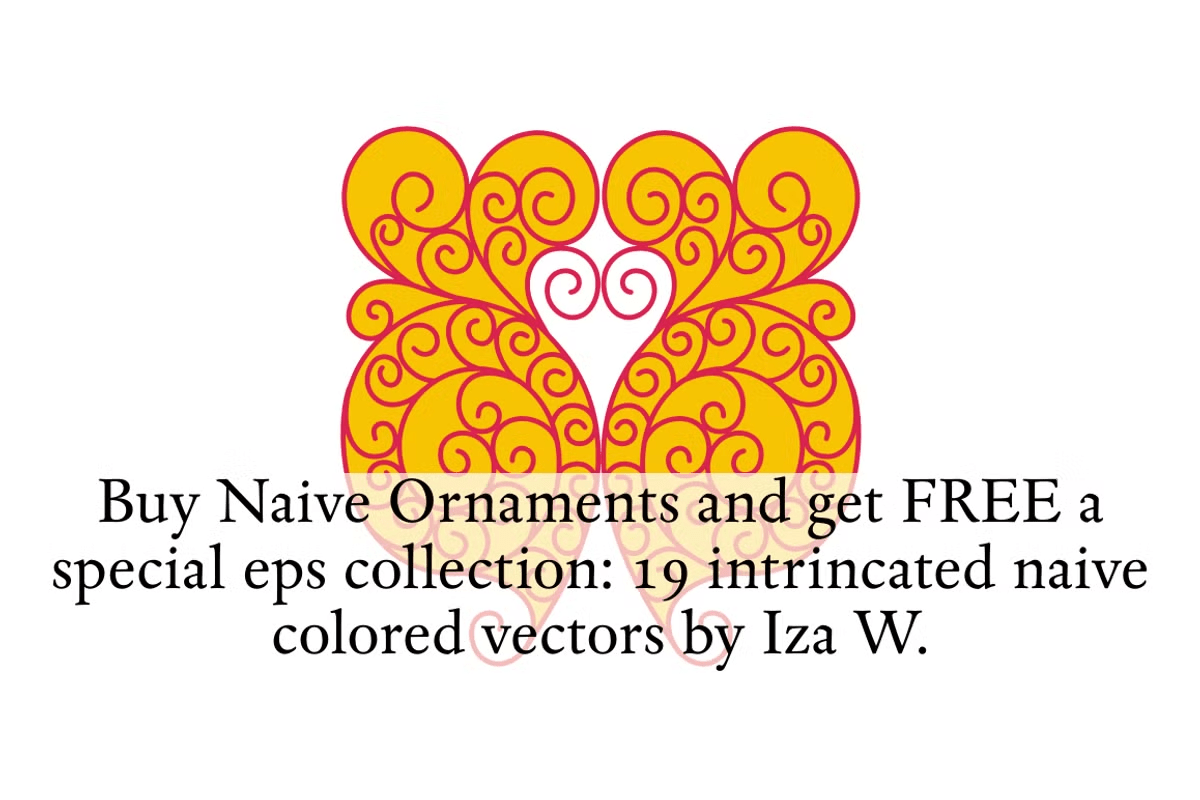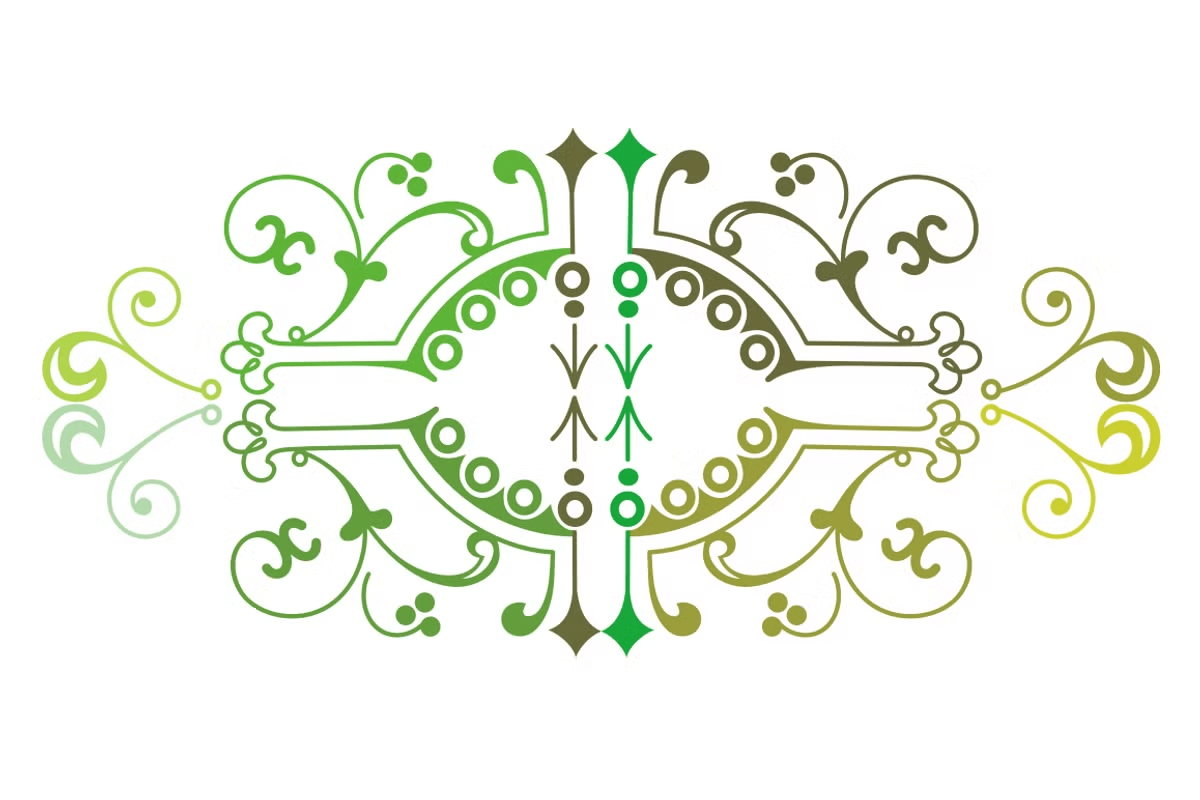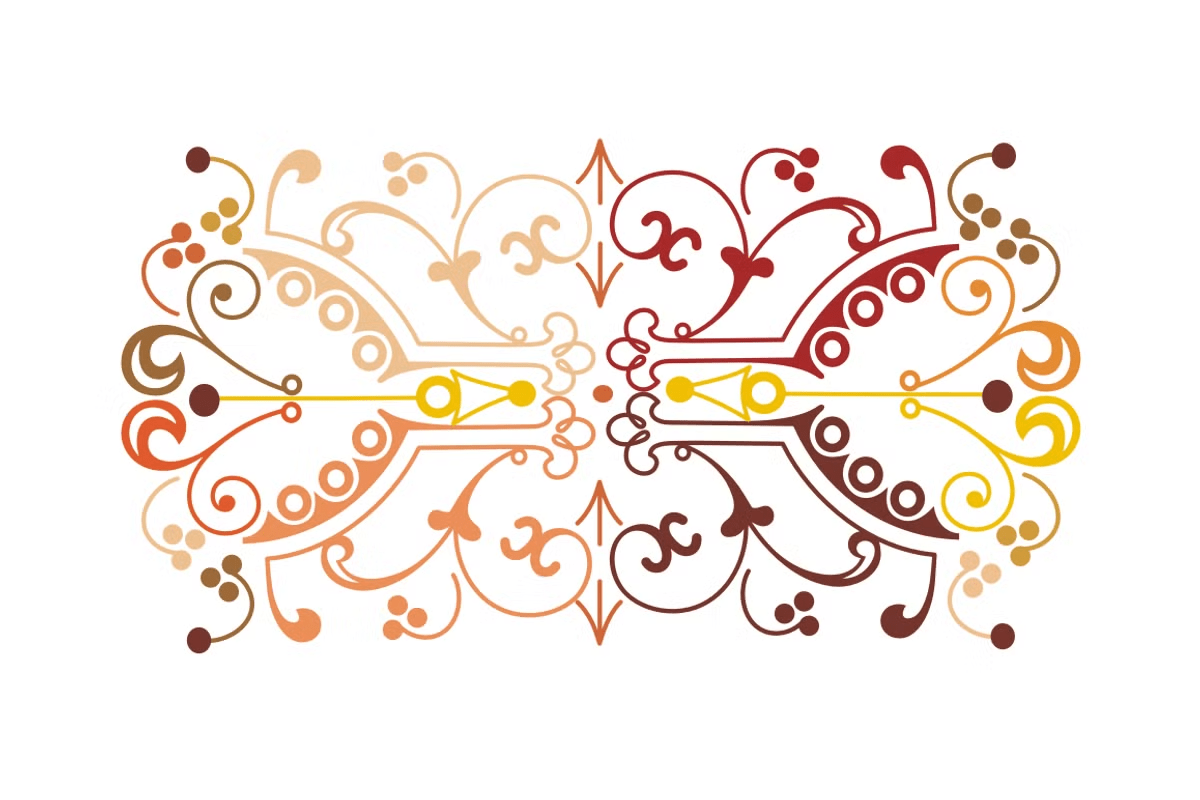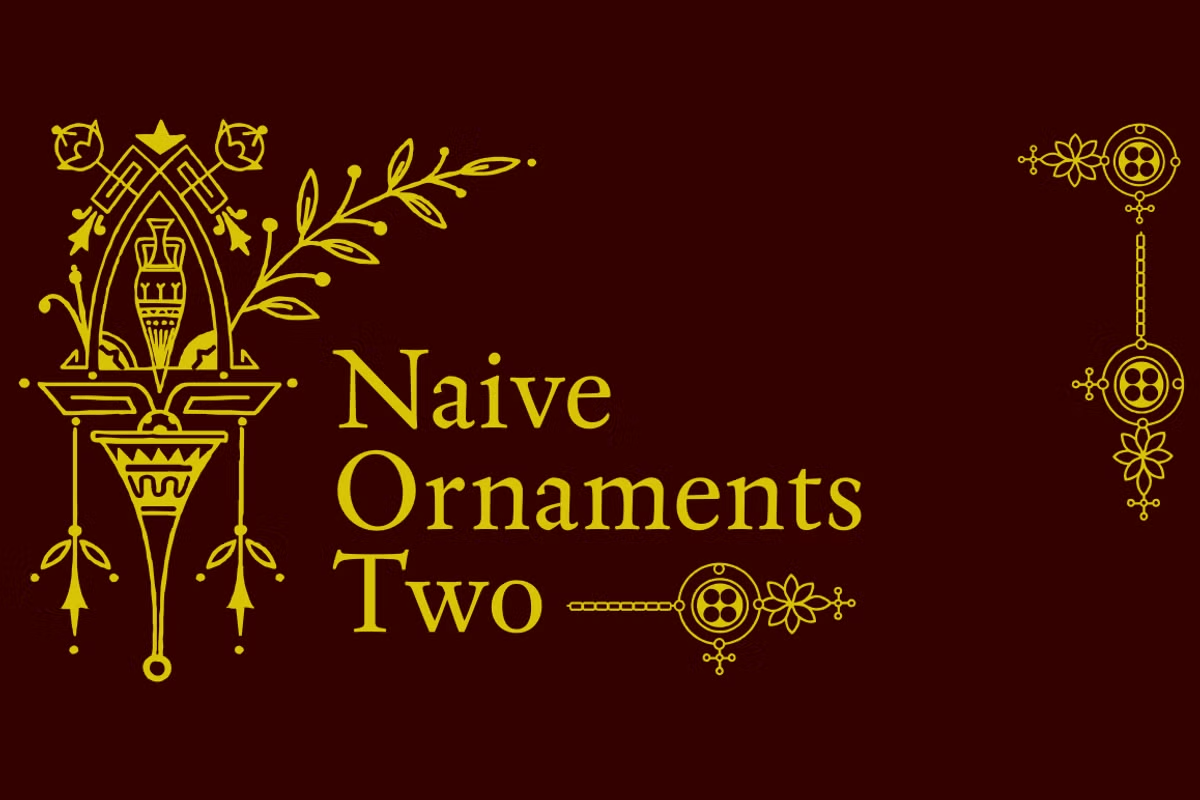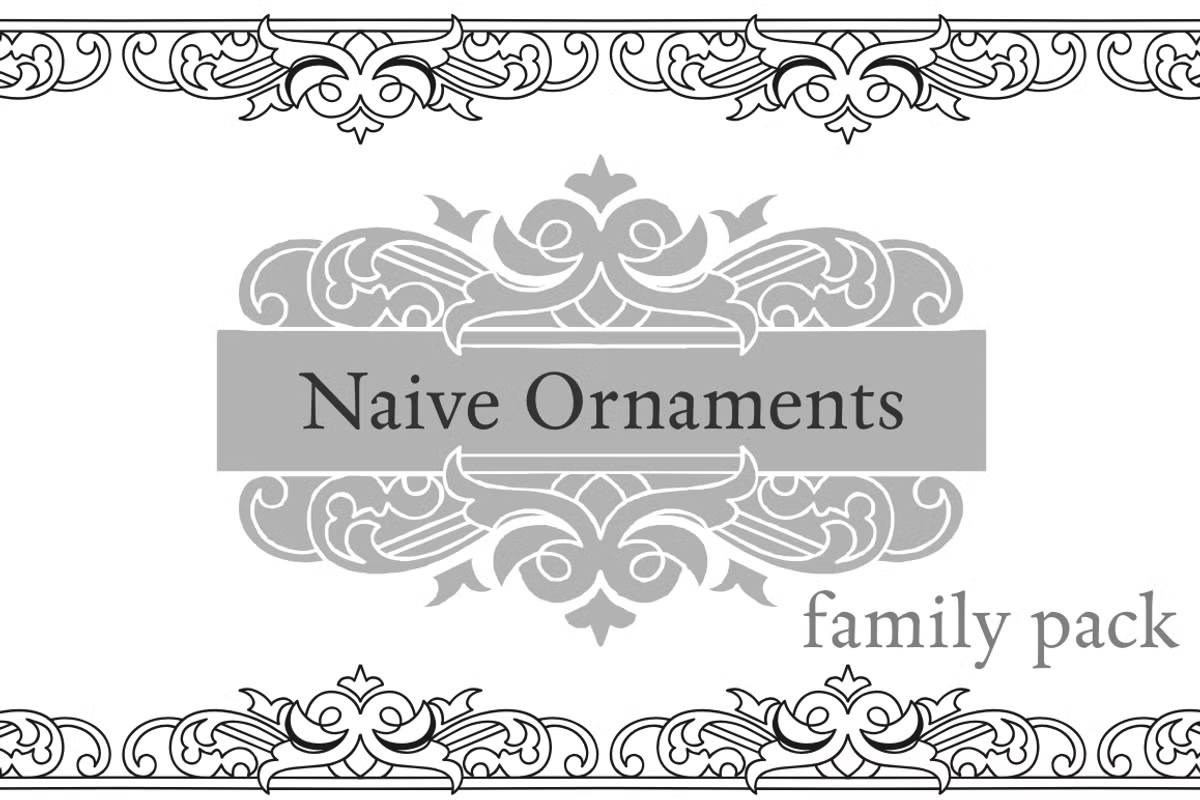
About Naive Ornaments
Naive Ornaments is a colorful collection of ornaments, available in font format. Good to use in arts and crafts works, books of arts, stationery, publishing stuff and many other applications. Another naive masterpiece by Iza W from Intellecta Design.…